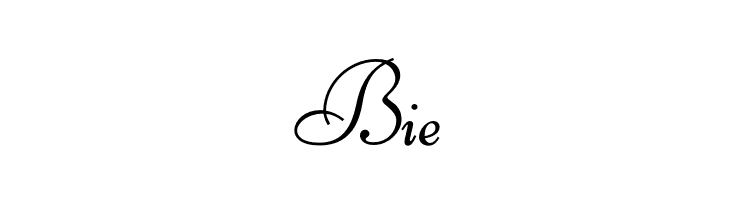
A playful, casual handwritten font with fluid, connected strokes.
A flowing, cursive font with elegant, interconnected characters.
A playful, artistic script font with flowing, interconnected letters and whimsical swirls.
A fluid, cursive script font with elegant, interconnected characters and a dynamic slant.
A refined and elegant script font with flowing, connected characters.
An elegant cursive font with flowing, interconnected characters and ornate uppercase letters.